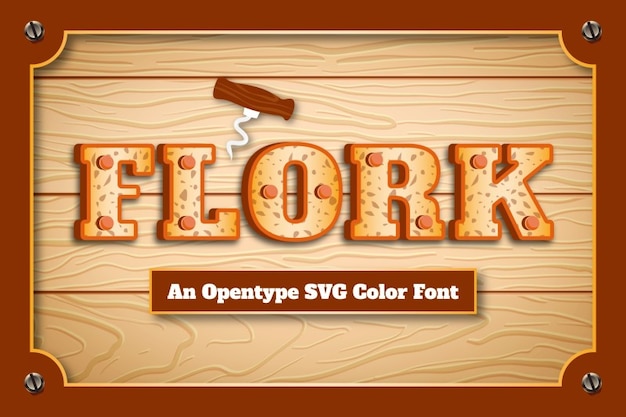
Flork Font
Flork, the font with a rustic charm as warm as a cozy tavern. Its letters evoke the rugged elegance of weathered wood, reminiscent of a Wild West saloon sign. Whether you're designing for a homely pub or a cowboy-themed event, Flork adds a touch of frontier authenticity. Each letter feels hand-carved, bringing a nostalgic, frontier spirit to your text. It's the perfect choice for projects that need a dash of rugged character, like a sign hanging on the swinging doors of a welcoming western watering hole. With Flork, your words become a journey to the heart of rustic simplicity. Saddle up and let the font tell your tale with a frontier flair.